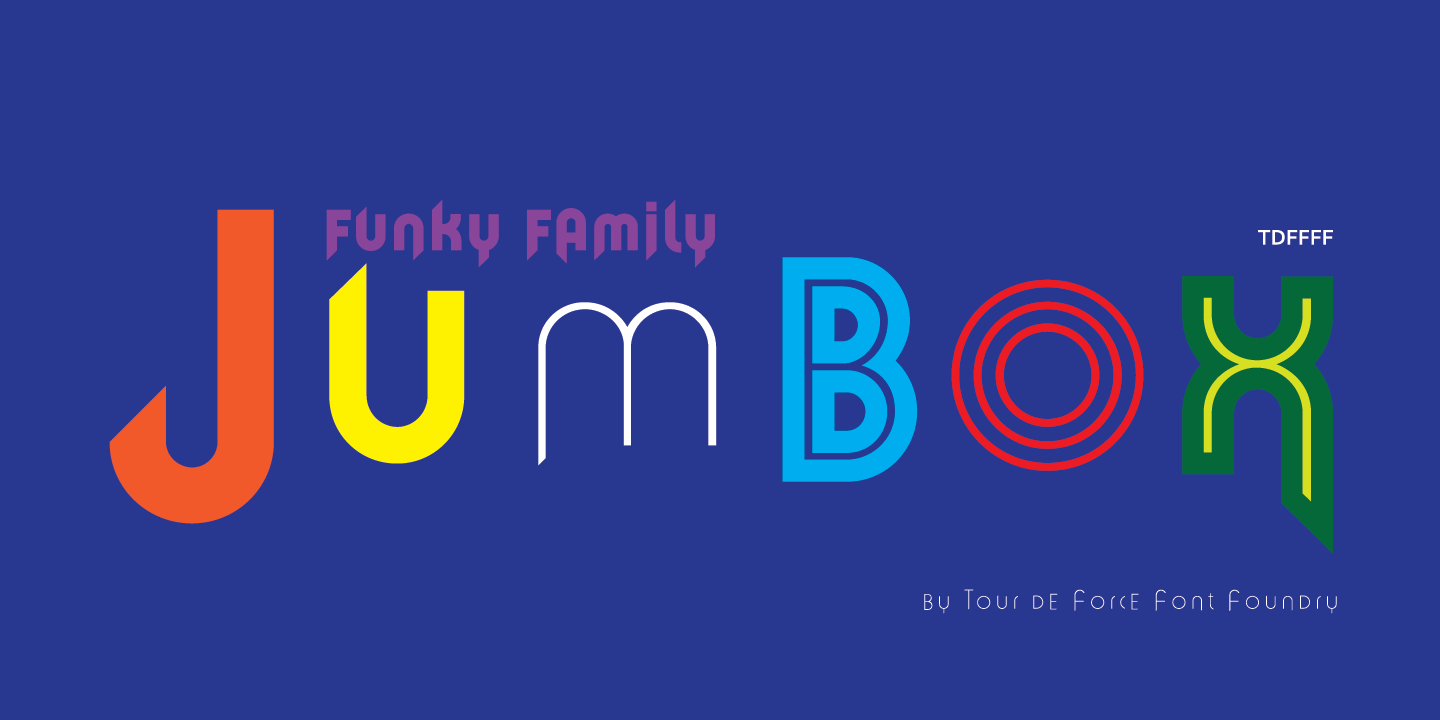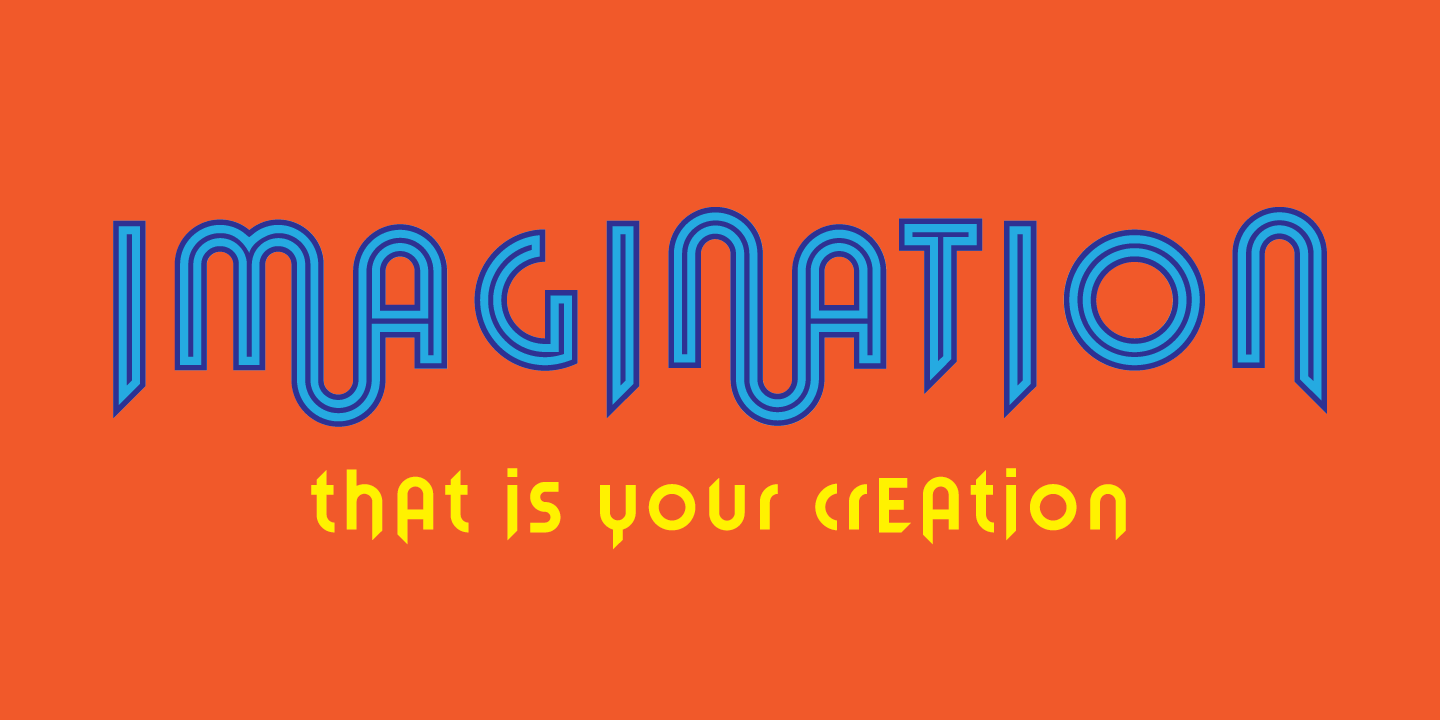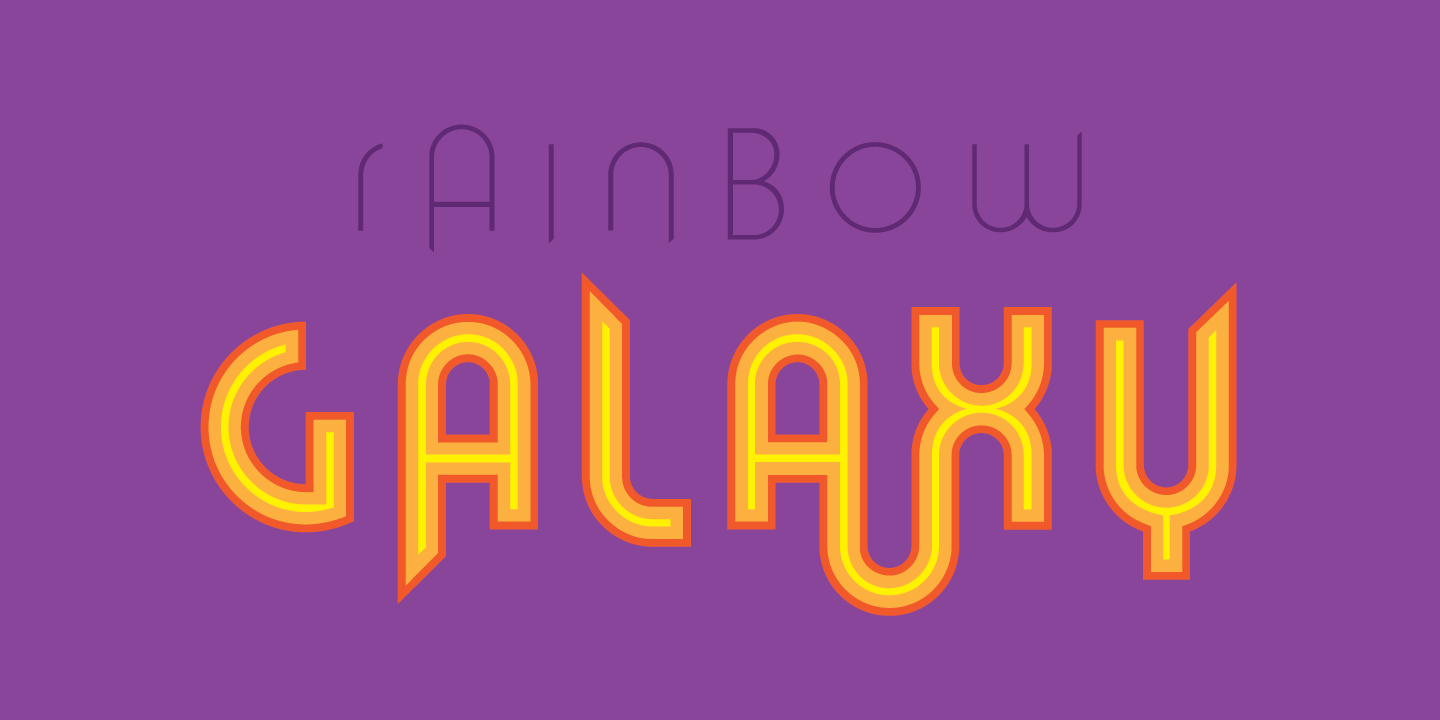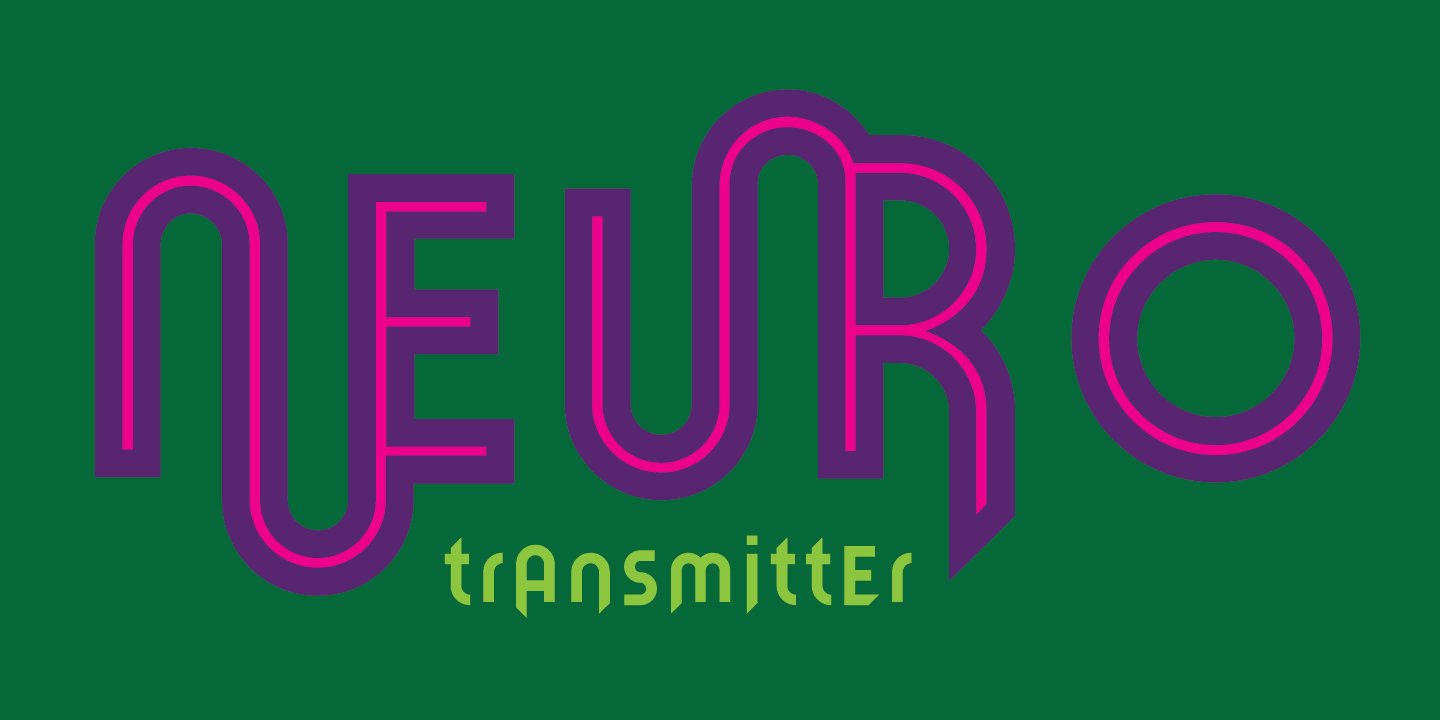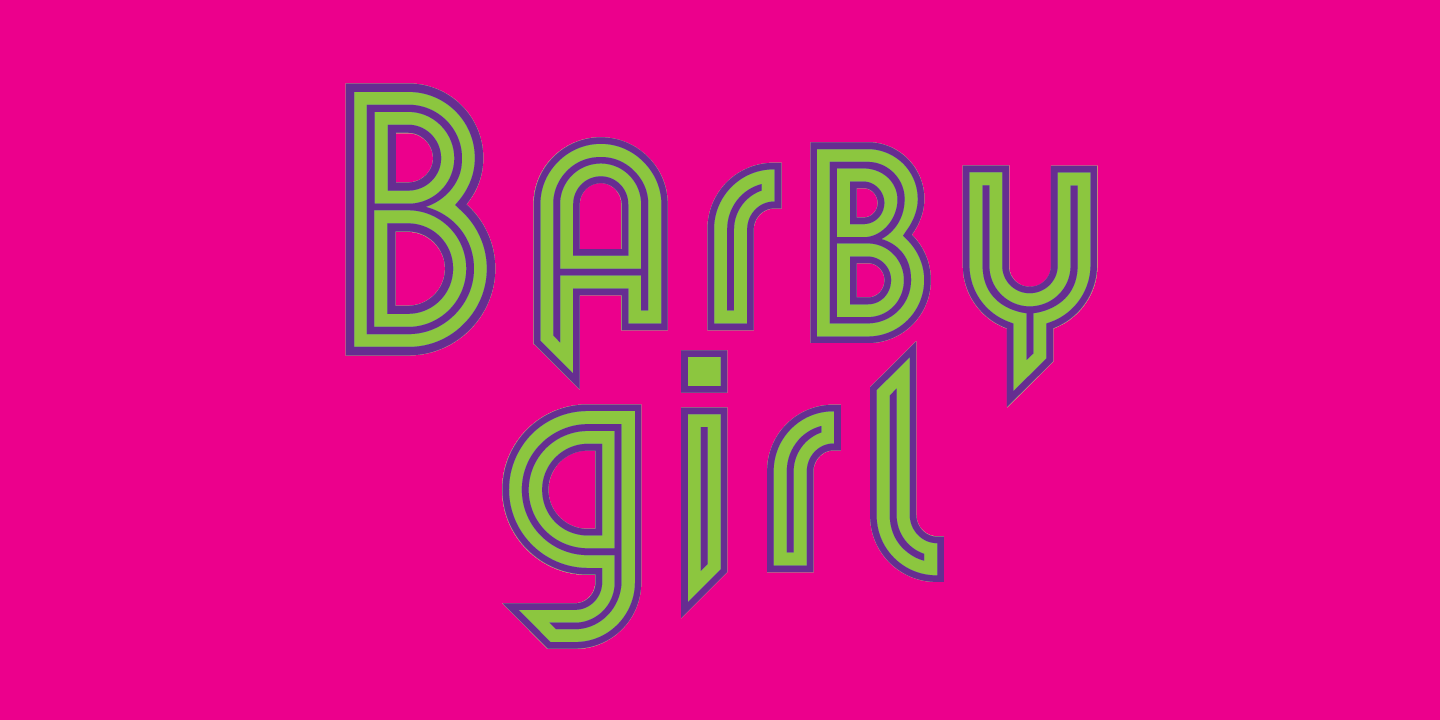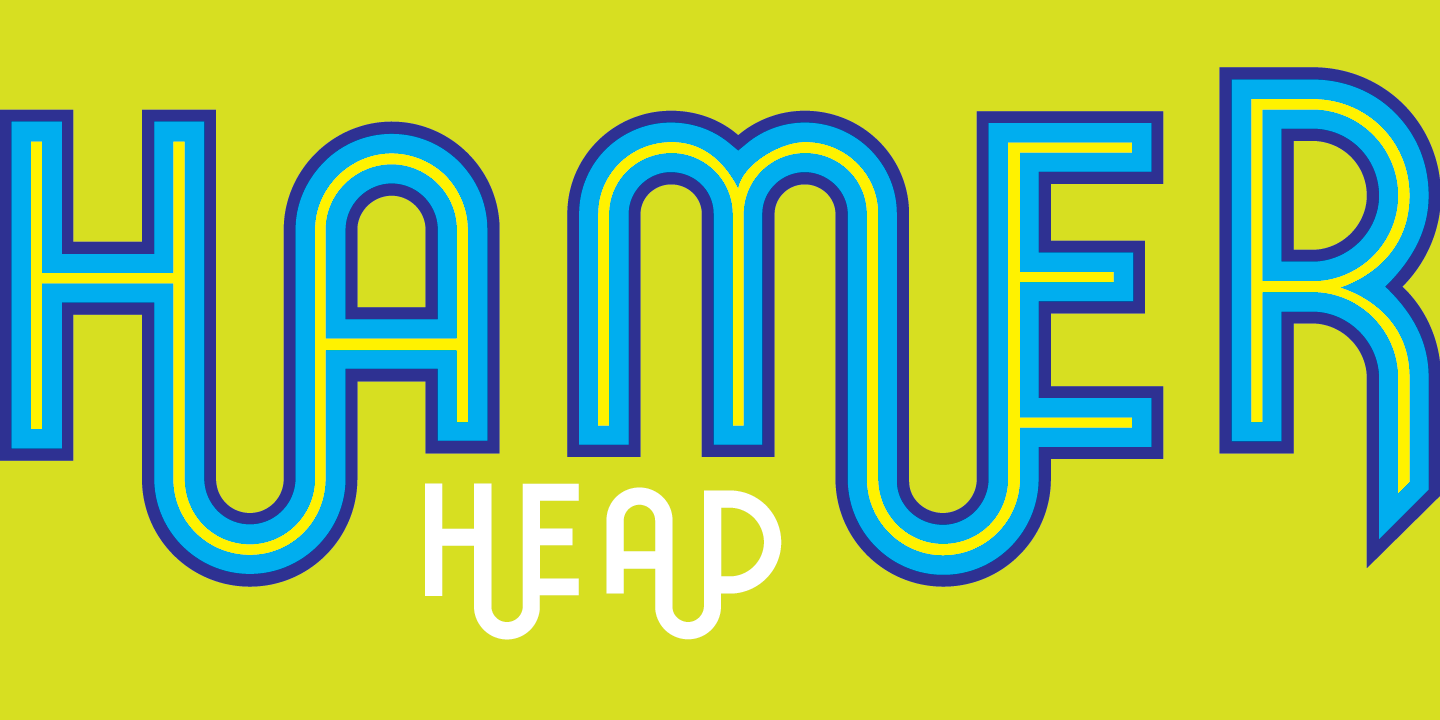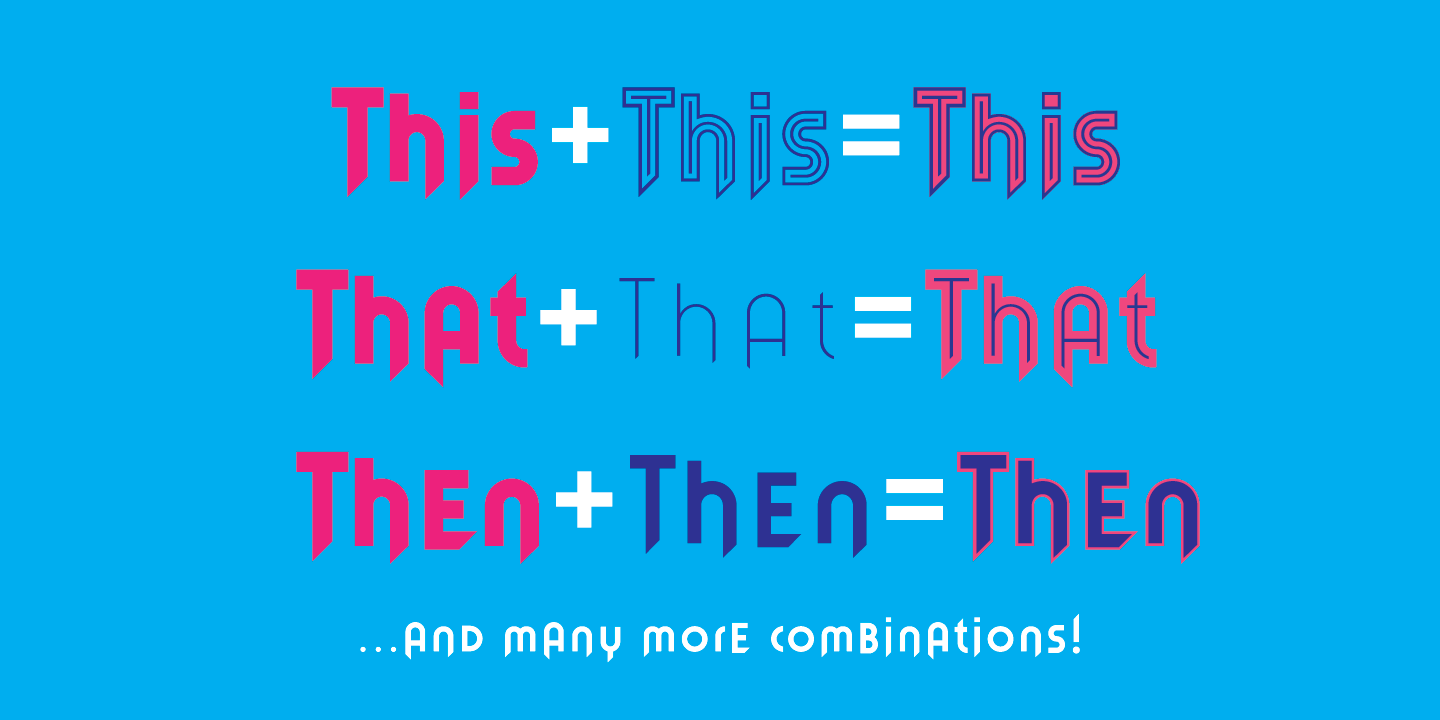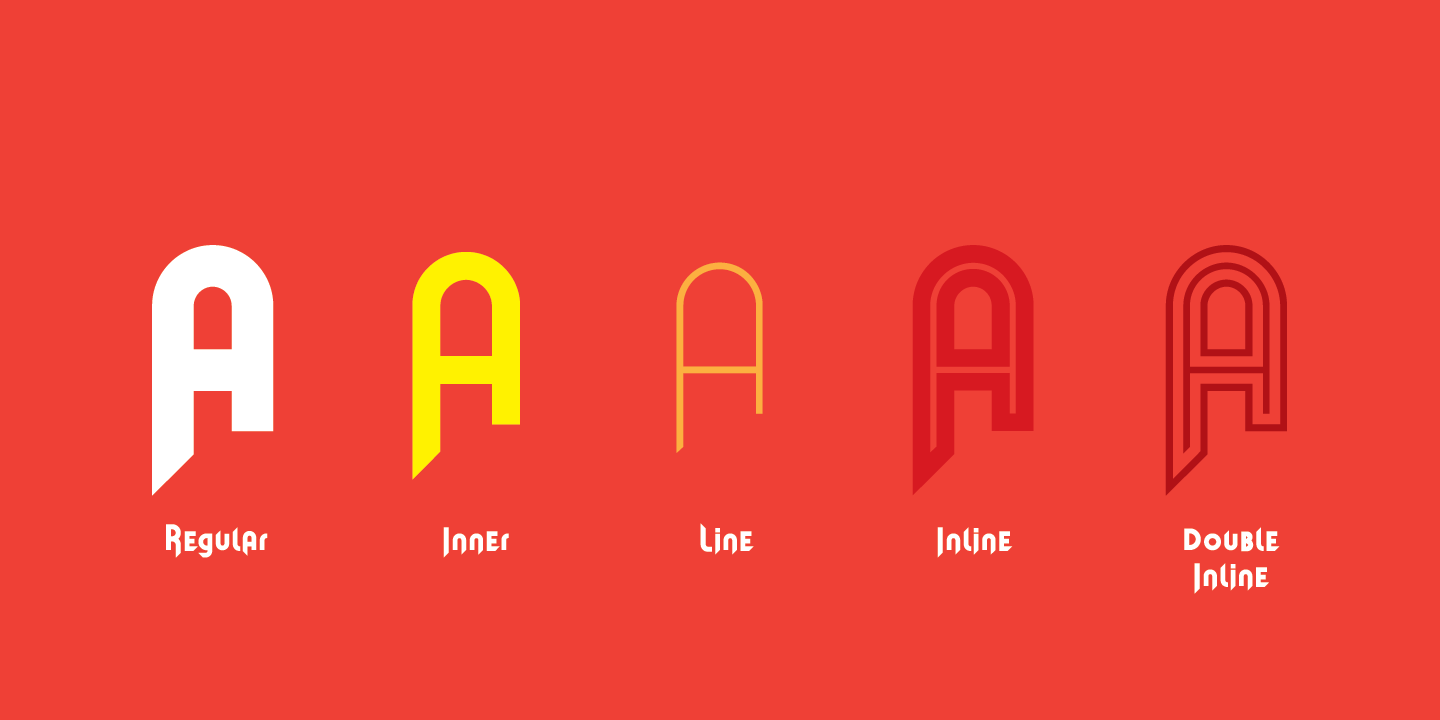
Jumbox is display family containing five weights that are actually layers. Combining them with different colours, Jumbox will bring strong sense of graphisms in your titles, product names, signage, billboards, packaging, web page headings – for wide range of uses.
Comes with pack of ligatures.